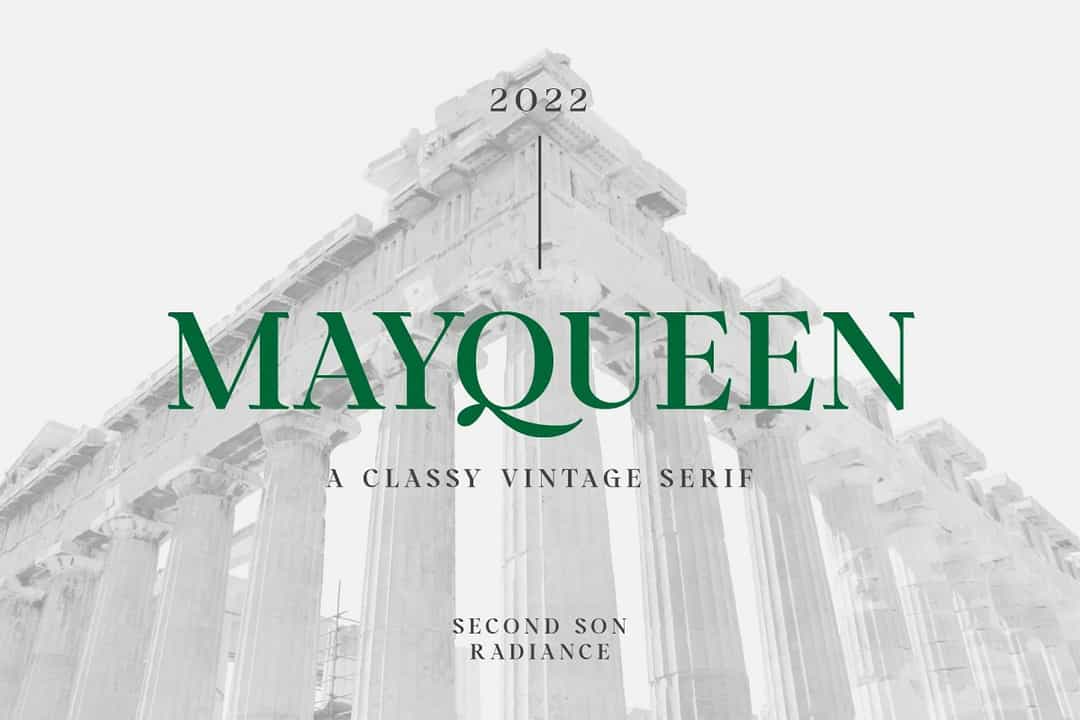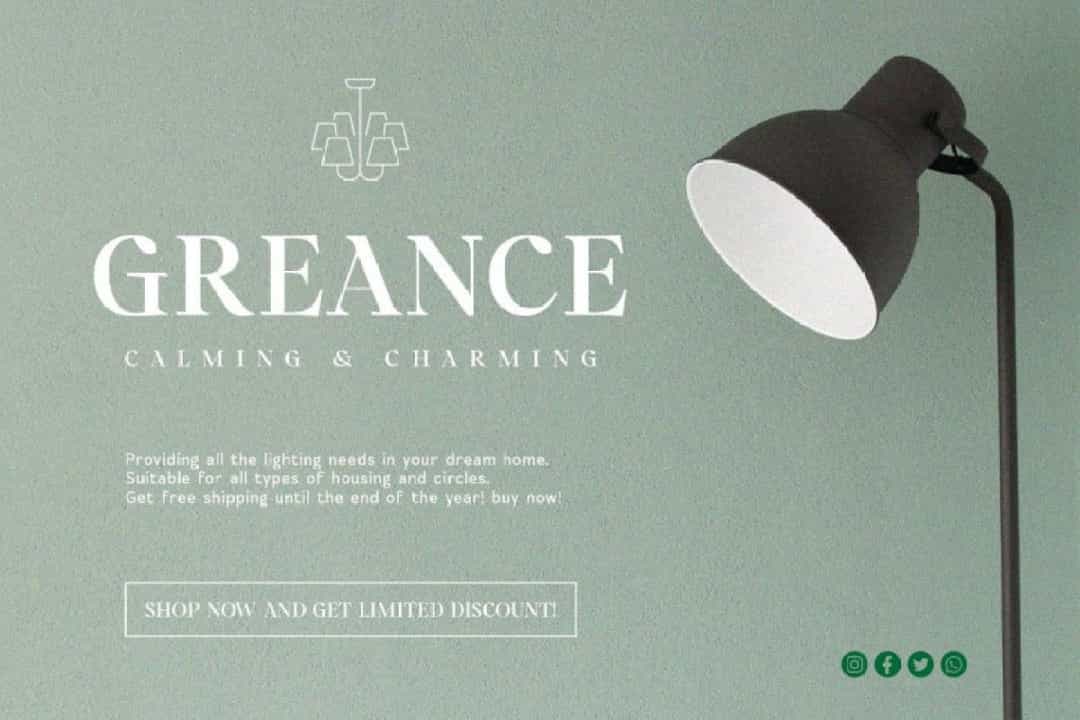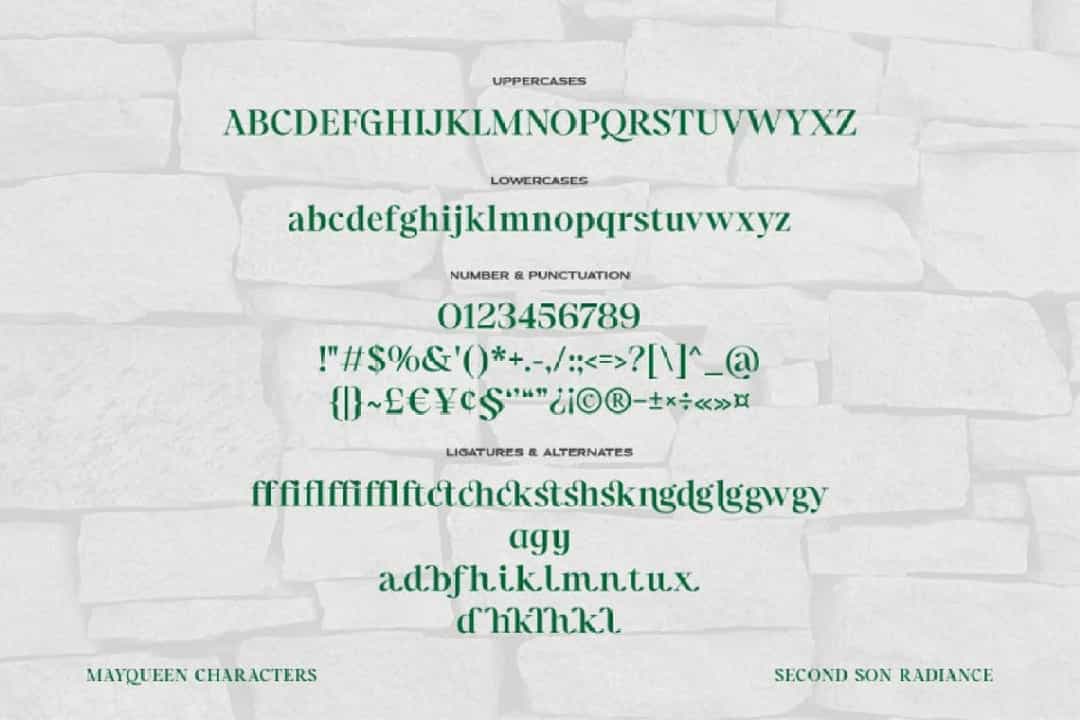
Mayqueen is an elegant serif font created to reflect timeless sophistication, perfect for luxurious logos and branding, editorial designs for women cosmetic brands magazines featuring editorial design features as well as branding for art galleries museums designs for stationery boutique branding blog designs contemporary advertising invitation cards artwork book cover titles home decor or special events and many more projects! Additionally it supports multilingual texts.